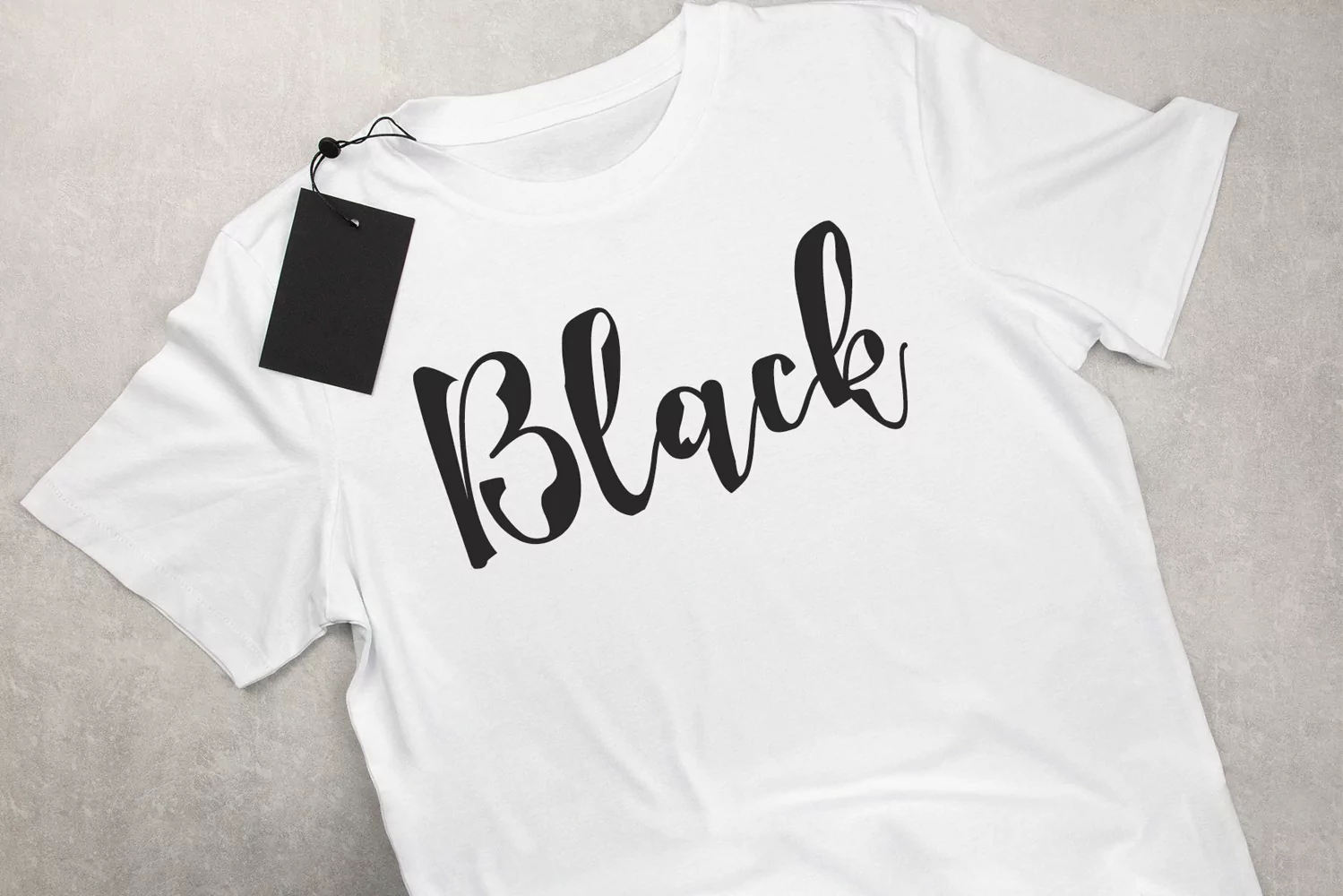
Asmbuh is a dazzling script font. This font is neatly crafted and highly detailed. It is also PUA encoded which means you can access all glyphs and swashes with ease!
Asmbuh
AsmbuhItalic